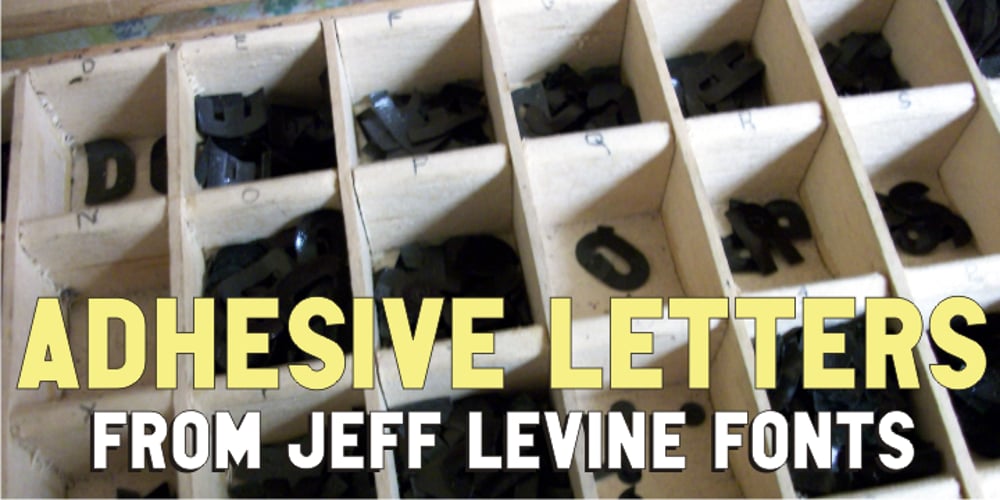
Adhesive Letters JNL
Adhesive Letters JNL font
Adhesive Letters JNL Font Family was designed by Jeff Levine and published by Jeff Levine. Adhesive Letters JNL contains 1 styles and family package options. Adhesive Letters JNL was drawn from sample letters and numbers once manufactured by the Tablet and Ticket Company of Chicago. Originally sold under the brand name of Willson’s, these gummed letters were available in a number of styles and sizes.